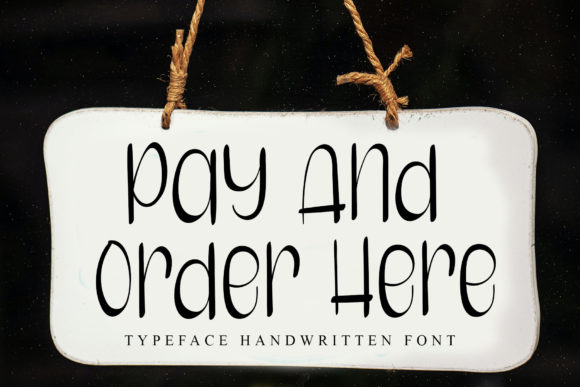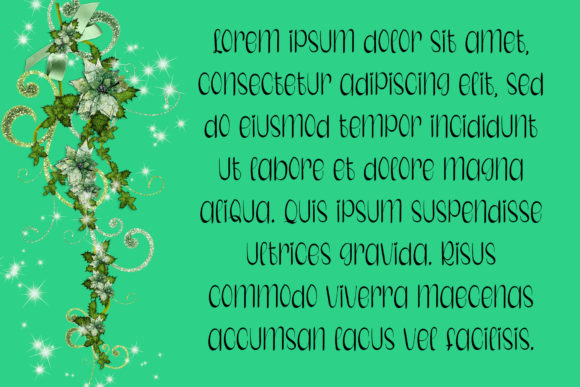
Homemade with Love Font
db-ku.com - Script & Handwritten -- Homemade with Love is a sweet and quirky handwritten font. It is perfect for product packaging, branding project, magazine covers, social media, wedding, or just used to express words above the background.